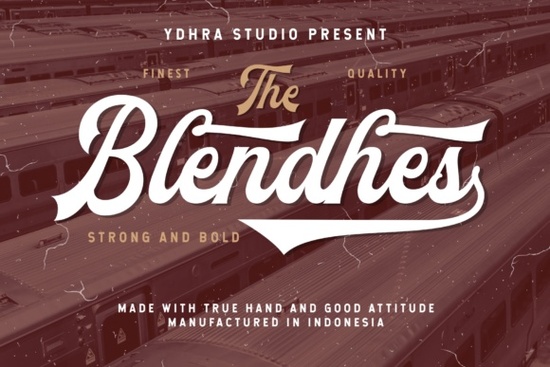
If you’ve been searching for a bold script font with vintage sports energy, The Blendhes Font might be exactly what your next project needs. It’s got that strong, hand-drawn look you’d see on classic baseball jerseys thick strokes, confident curves, and just enough edge to stand out without feeling chaotic. Whether you’re designing merch, logos, social posts, or craft projects, this font gives you room to play while keeping things professional.
What makes The Blendhes different from other script fonts?
Most script fonts lean soft or elegant think wedding invites or boutique branding. But The Blendhes leans into grit. It’s built for impact. That doesn’t mean it’s hard to use, though. In fact, one of its best features is the set of alternate characters included. You can swap letters around to avoid repetition, add personality, or break up predictable shapes. This flexibility helps your designs feel custom, even if you’re working fast.
For example, if you’re making a t-shirt design for a local softball team, try mixing uppercase and lowercase alternates to create rhythm in the text. Or pair it with a clean sans-serif for contrast something like Amelia Rose for softer companion pieces, or go bolder with Fantastic Font if you want to double down on drama.
Who should consider using this font?
- Print-on-demand sellers The Blendhes works great on hoodies, mugs, posters, and stickers. Its thick lines hold up well at small sizes and print cleanly.
- Small business owners Need a logo with character? This font adds instant attitude without looking unprofessional.
- Crafters and DIY designers Use it for vinyl cutting, embroidery patterns, or chalkboard signs. The alternates make each piece feel unique.
- Social media creators Stand out in feeds with headlines that pop. Try it for quote graphics, event announcements, or product launches.
A note about pairing
Because The Blendhes has such a strong presence, keep your pairings simple. A minimalist sans-serif or a neutral slab serif lets it shine. Avoid pairing it with another decorative script unless you’re going for intentional chaos (and sometimes, that’s fun too). If you’re exploring more playful scripts, check out Fairies Font for whimsy or Handwritten Bundle if you need variety across multiple projects.
How do I get the most out of the alternate characters?
Pro tip: Don’t overdo it. Two or three alternates per word is usually plenty. Too many and your text becomes hard to read. The goal is charm, not confusion.
The Blendhes isn’t trying to be everything to everyone and that’s why it works. It knows its lane: bold, sporty, slightly nostalgic, and full of character. If your project needs energy, confidence, or a touch of Americana flair, this font delivers without fuss.